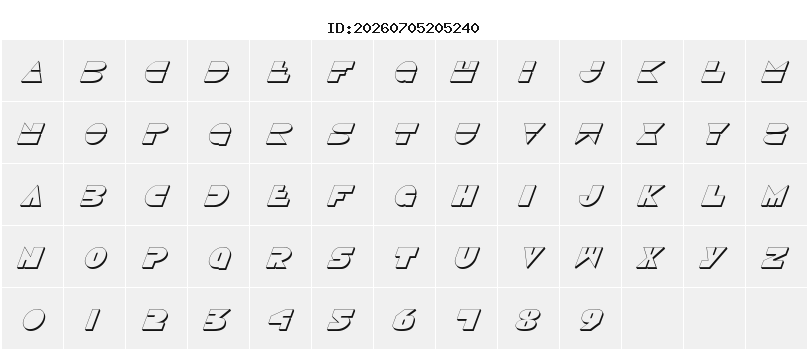
Disco Duck 3D Italic Preview
• Font Name: Disco Duck 3D Italic
• Font Style: 3D Italic
• Font ID: Disco Duck 3D Italic
• Full Font Name: Disco Duck 3D Italic
• PostScript Name: DiscoDuck3DItalic
About Disco Duck 3D Italic.ttf
Disco Duck 3D Italic.ttf is a modern, elegant sans-serif font designed for ultimate readability and visual harmony. Perfect for branding, headlines, web design, and print materials.